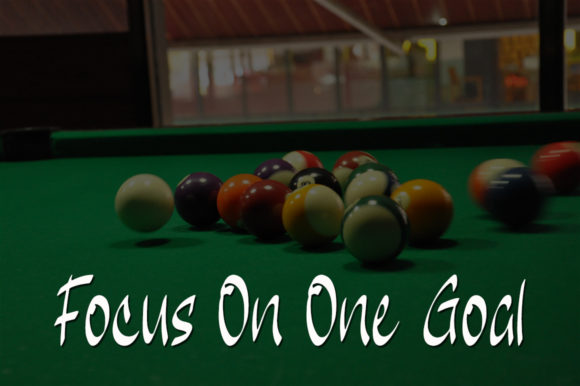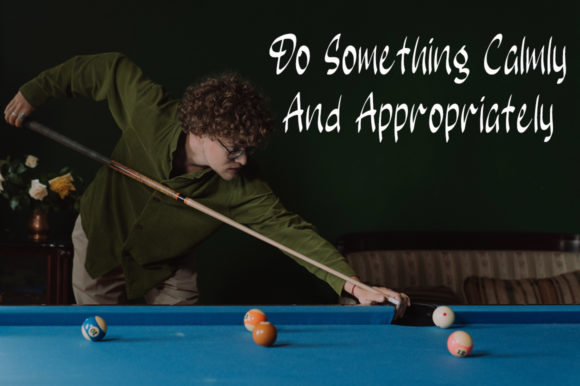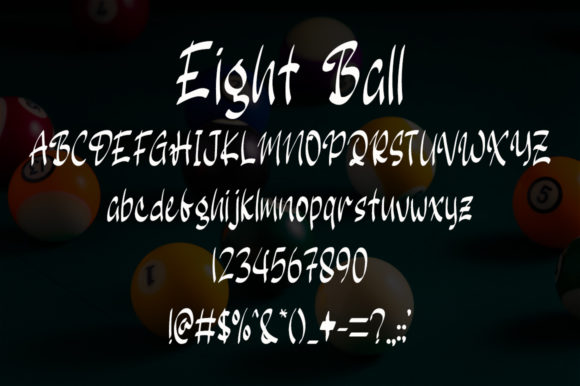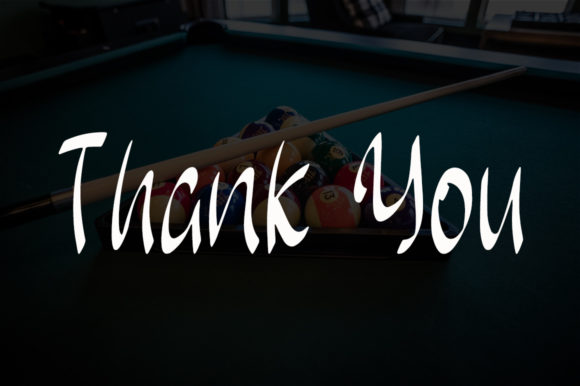
The Ultimate Guide to Eight Ball Font: A Sweet and Friendly Handwritten Delight
I’ll never forget the time I was working on a project for a client who wanted a playful, yet elegant font to match their brand’s personality. I scoured the internet for hours, trying out font after font, but nothing seemed quite right. That was until I stumbled upon the Eight Ball font. Its unique, handwritten style instantly caught my eye, and I knew I had found the perfect fit. In this article, I’ll share my love for the Eight Ball font, its features, and how to make the most of it in your designs.
An Honest Review of Eight Ball Font
What I Love About Eight Ball Font ✨
- ✅ Unique and playful style: Eight Ball font has a natural, handwritten look that’s perfect for designs that need a personal touch.
- ✅ Highly versatile: This font can be used for a wide range of projects, from invitations and greeting cards to branding and advertising.
- ✅ Easy to read: Despite its playful nature, Eight Ball font is surprisingly legible, making it perfect for body text and headlines.
- ✅ OpenType features: Eight Ball font comes with a range of OpenType features, including glyphs and stylistic alternates, which can add an extra layer of creativity to your designs.
- ⚠️ Limited use in formal designs: While Eight Ball font is incredibly versatile, it may not be the best choice for formal designs, such as business reports or academic papers.
- ⚠️ Some characters may require adjustment: As with any font, some characters may require adjustment to get the perfect spacing and alignment.
The Backstory of Eight Ball Font
Eight Ball font was designed with the intention of creating a unique and playful handwritten font that could be used for a wide range of designs. The designer wanted to create a font that was both elegant and fun, with a natural and effortless feel. The result is a font that’s perfect for designs that need a personal touch.
Q: What is the Eight Ball font best used for?
A: The Eight Ball font is best used for designs that need a playful and personal touch, such as invitations, greeting cards, and branding.
Q: Is Eight Ball font suitable for body text?
A: Yes, Eight Ball font is surprisingly legible and can be used for body text, especially in larger font sizes.
Q: Does Eight Ball font come with OpenType features?
A: Yes, Eight Ball font comes with a range of OpenType features, including glyphs and stylistic alternates.